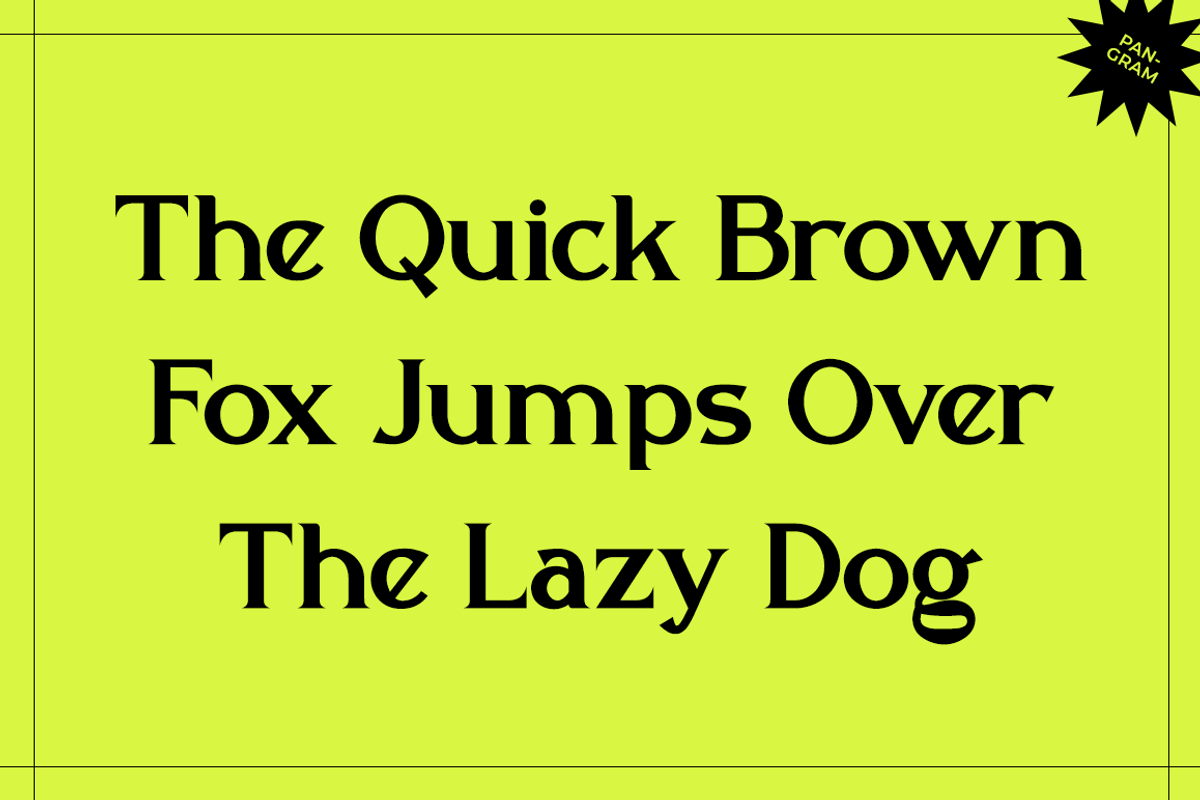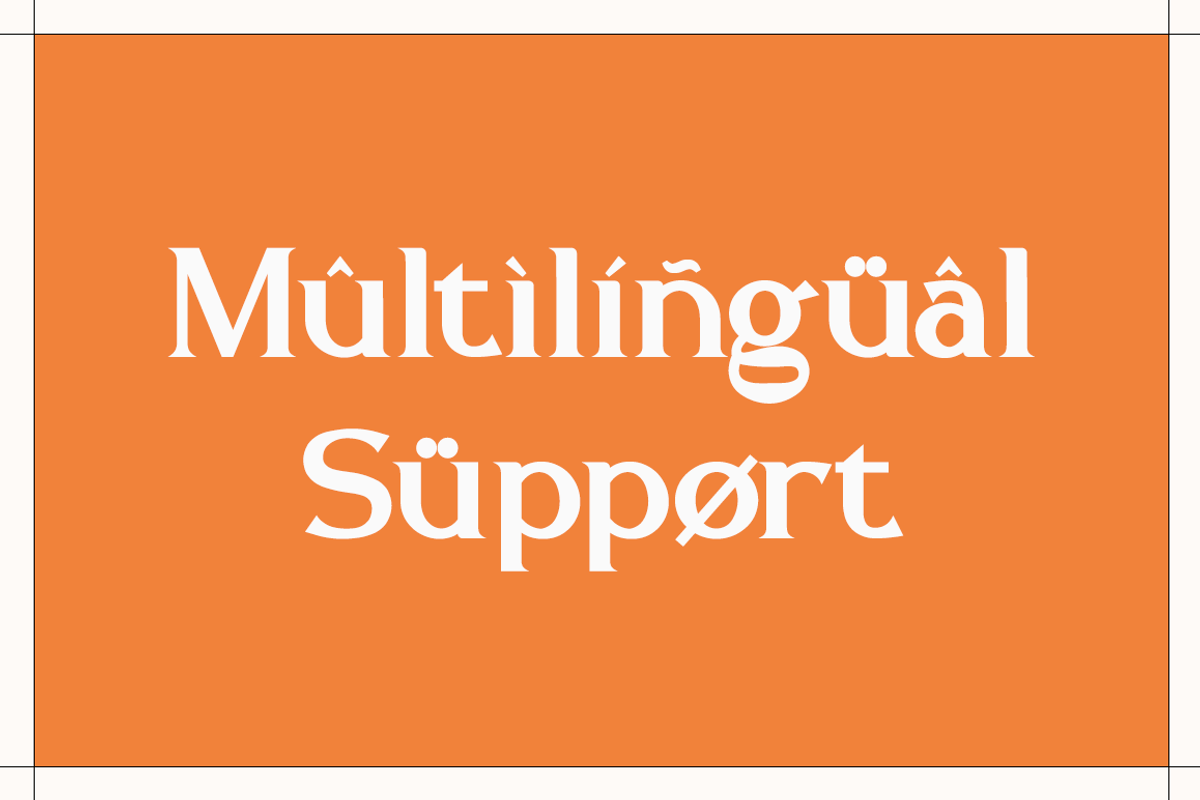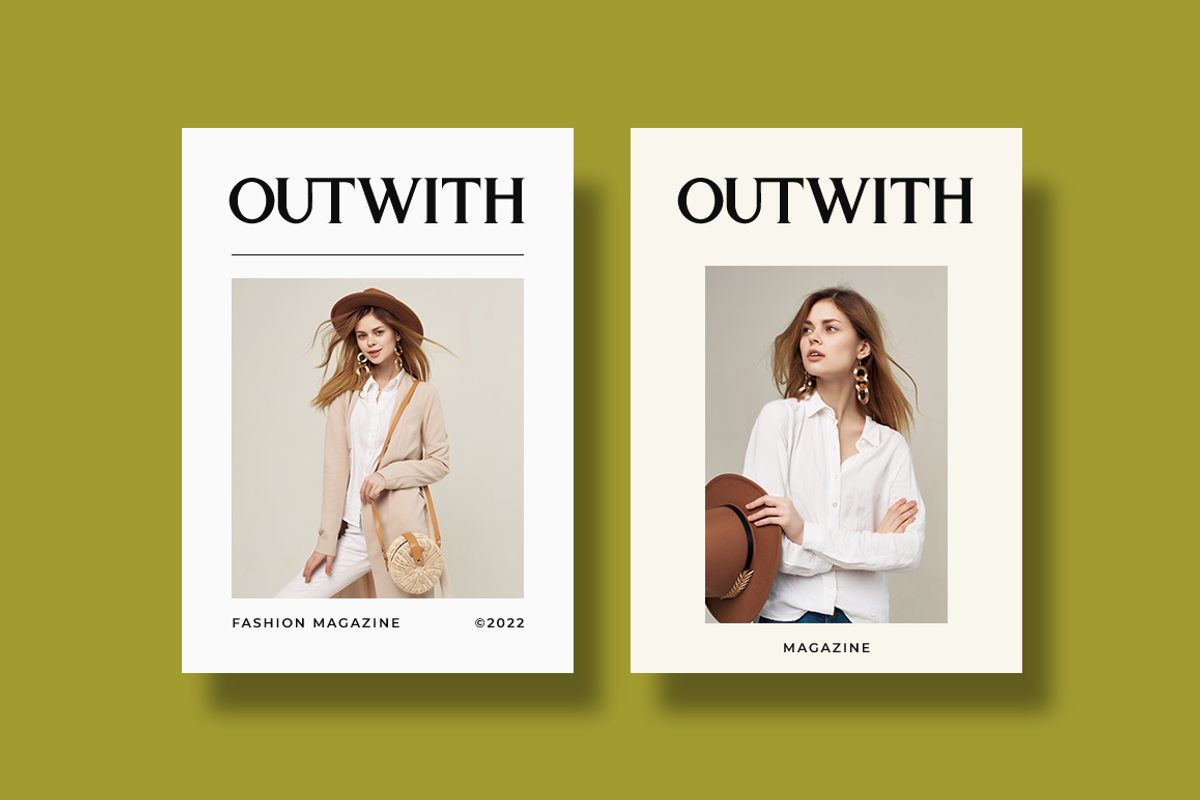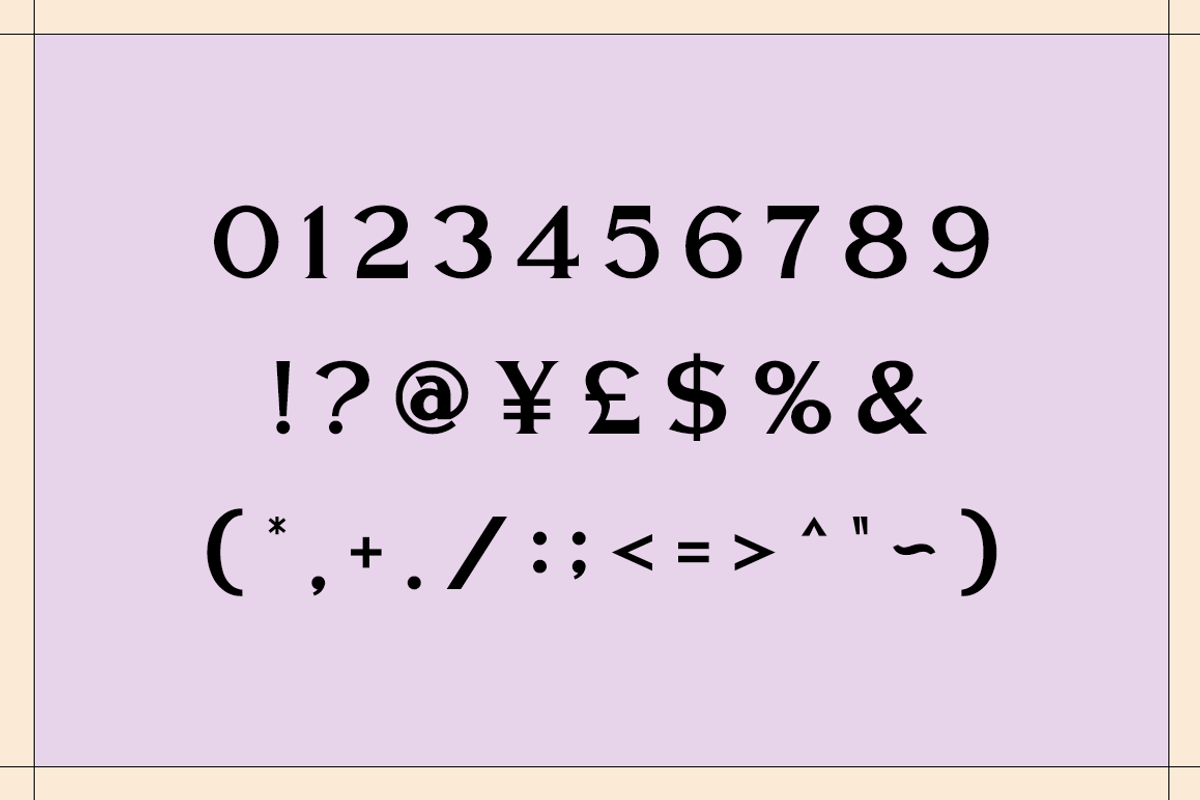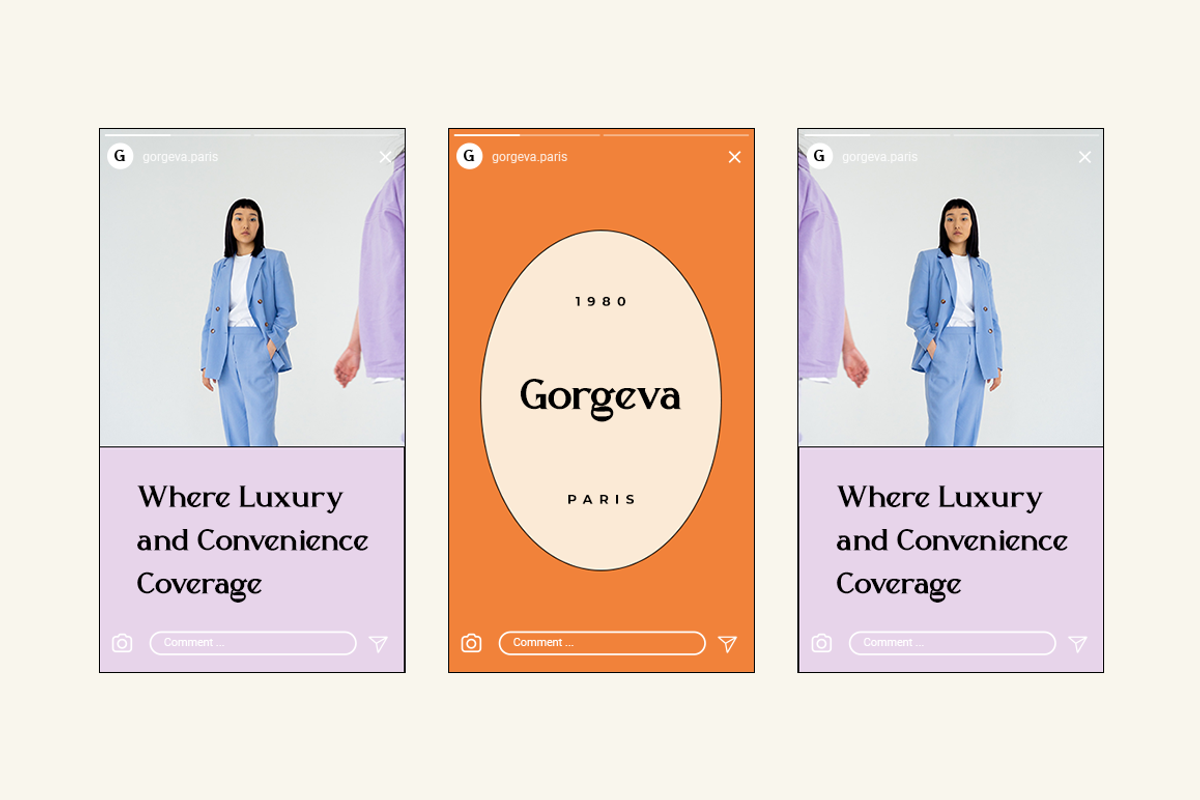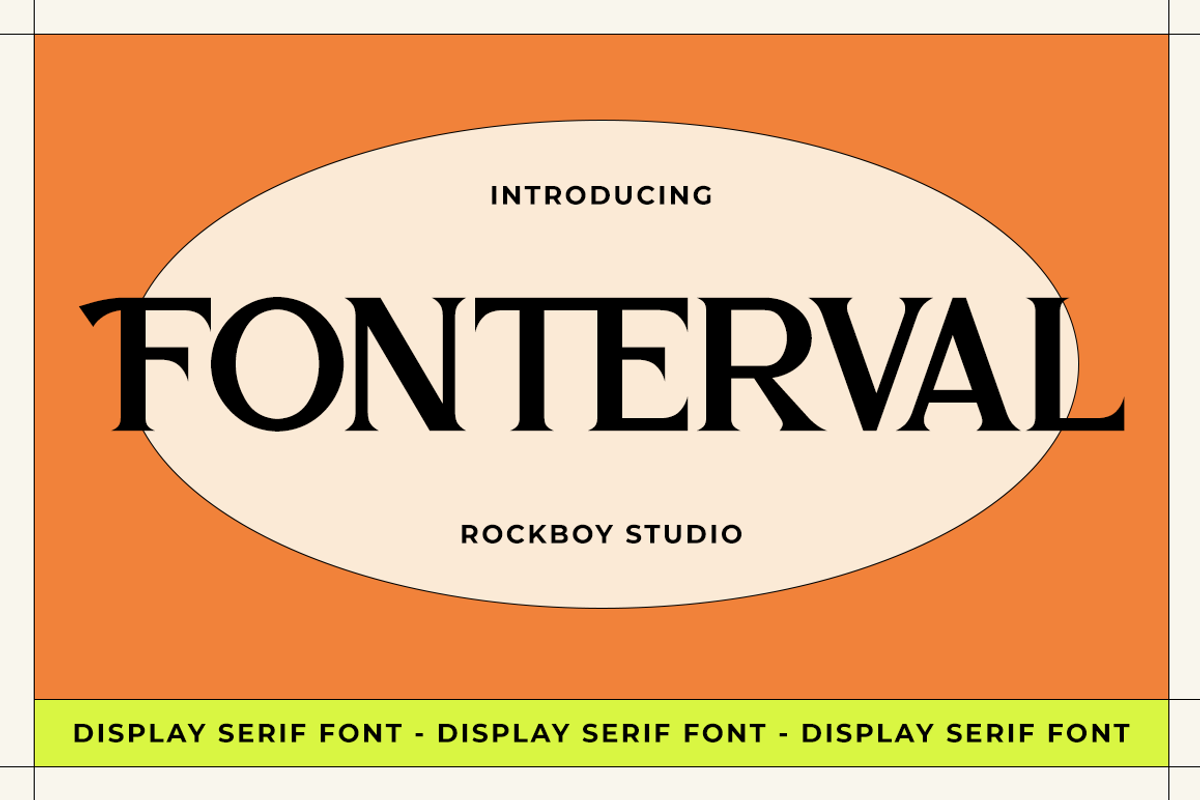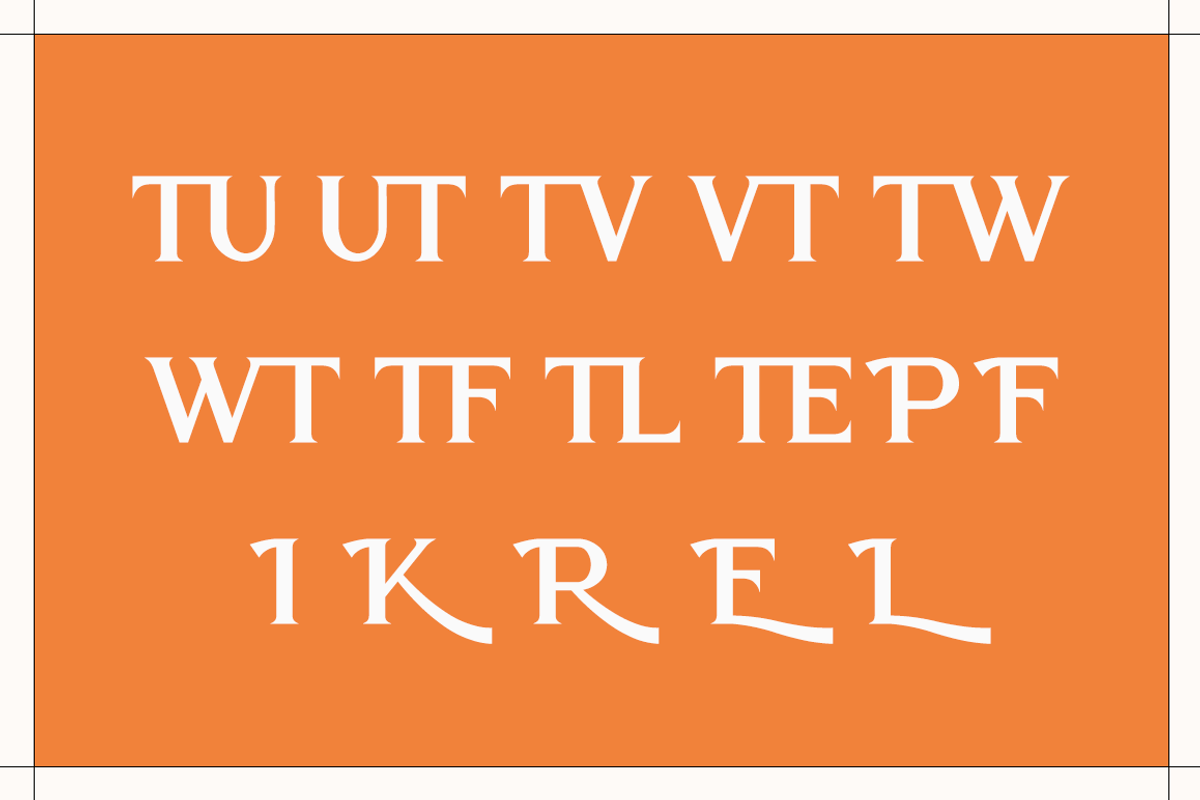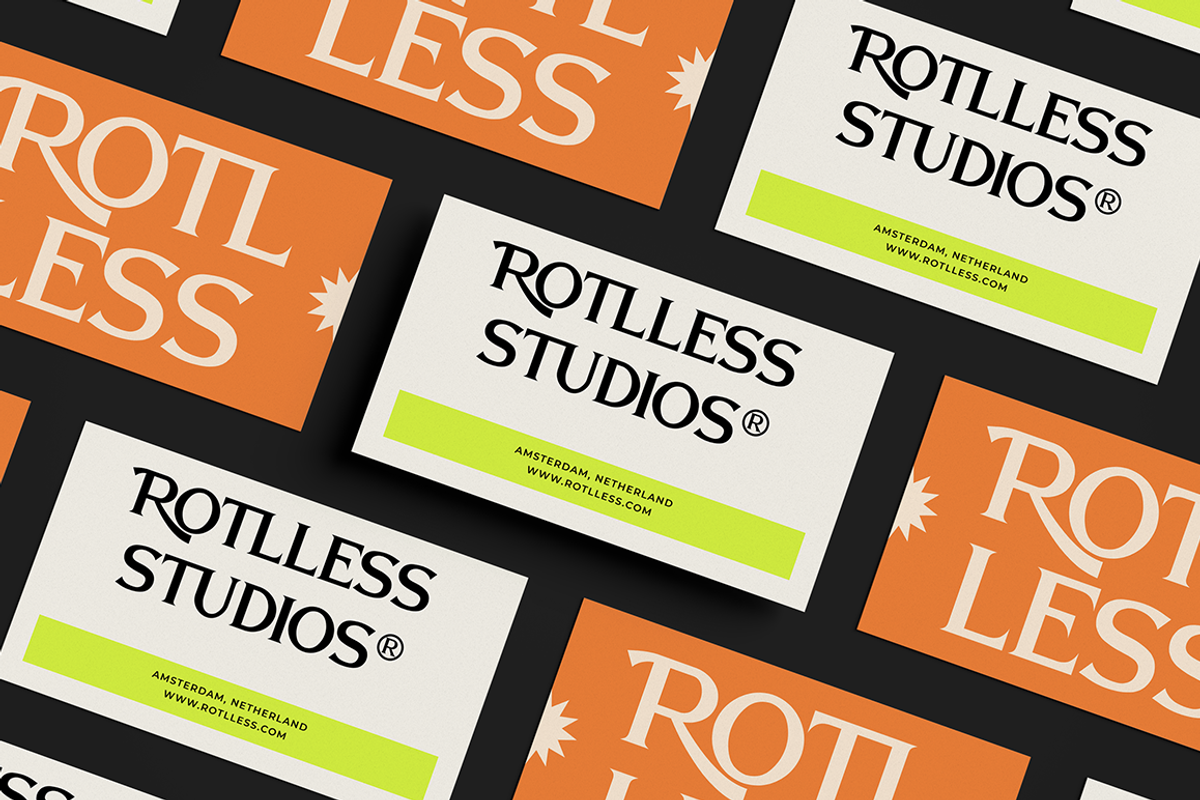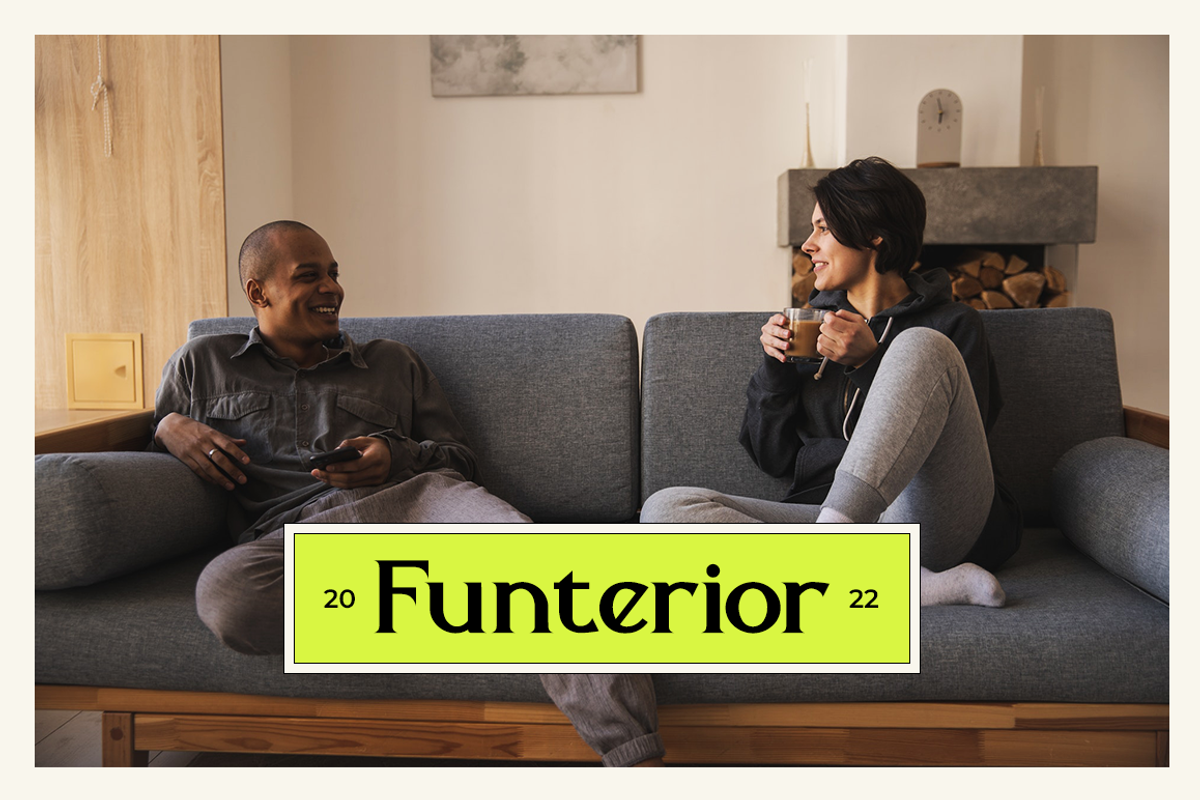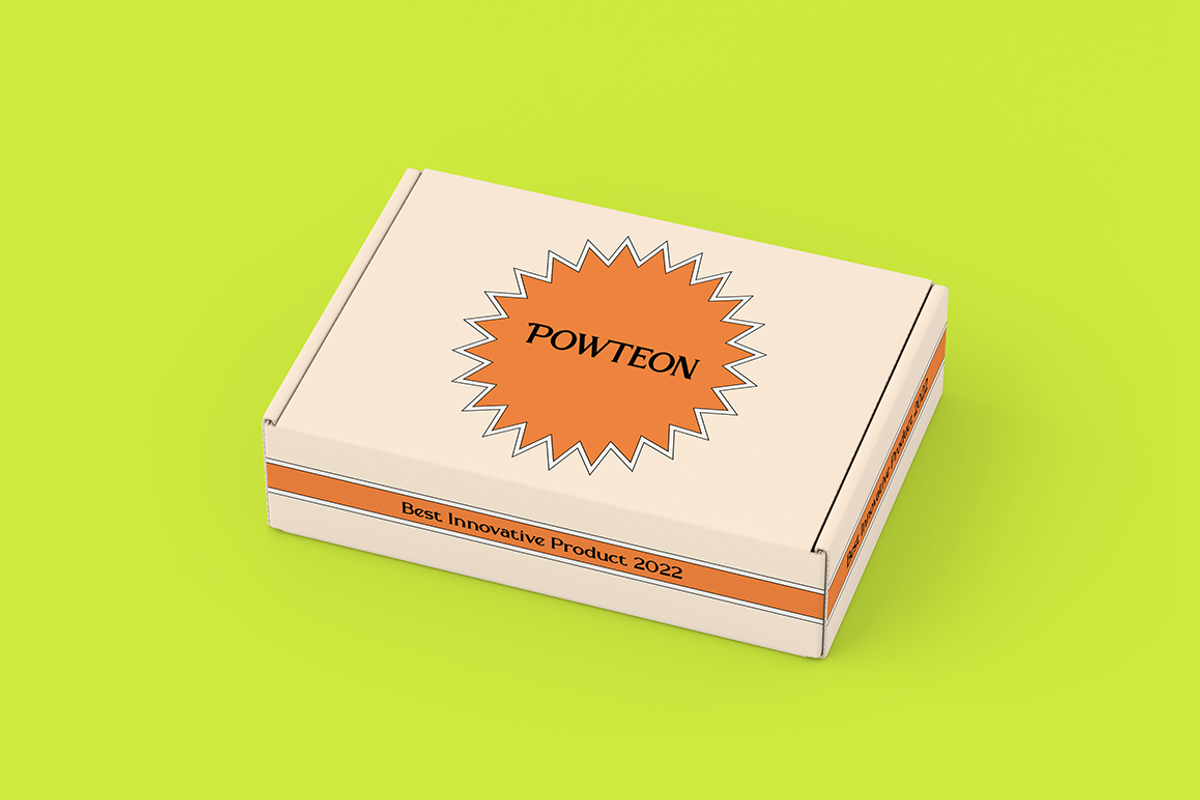
Fonterval - Display Serif Font
Fonterval is an elegant, thin lettered and distinct serif font. Suitable to a wide variety of designs due to its neat and clean style, this font has the potential to become your favorite go-to font, no matter the occasion!